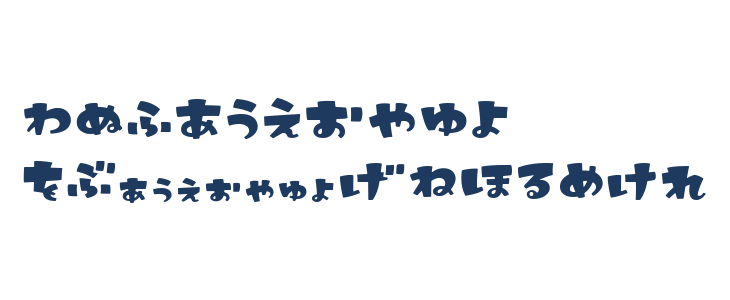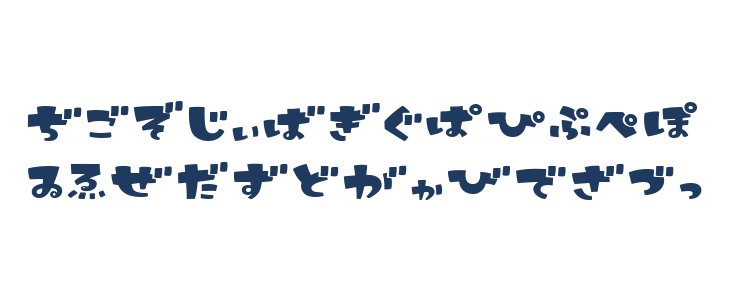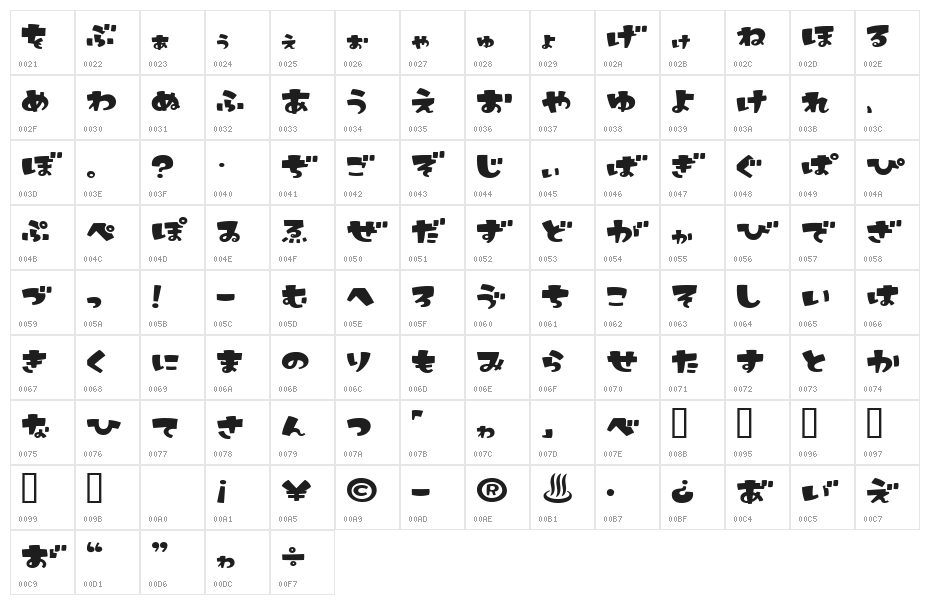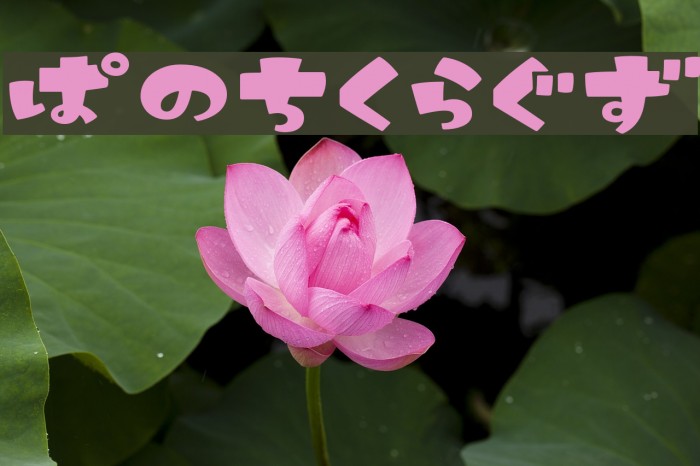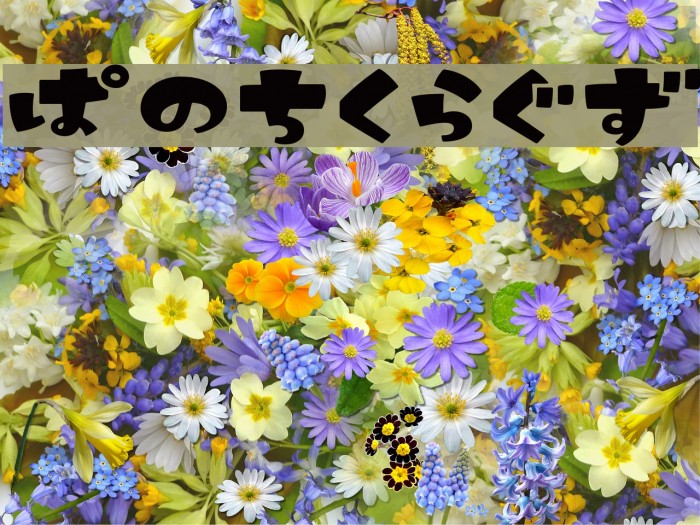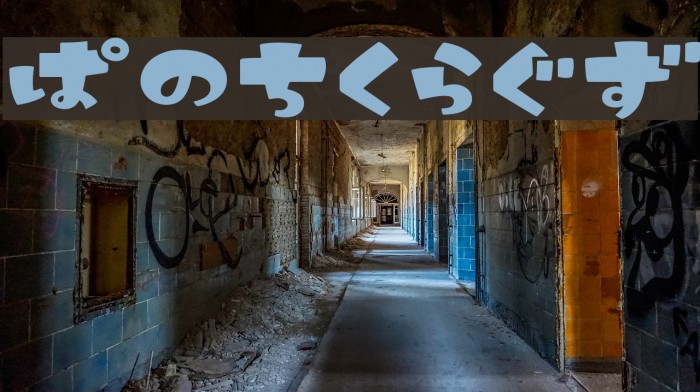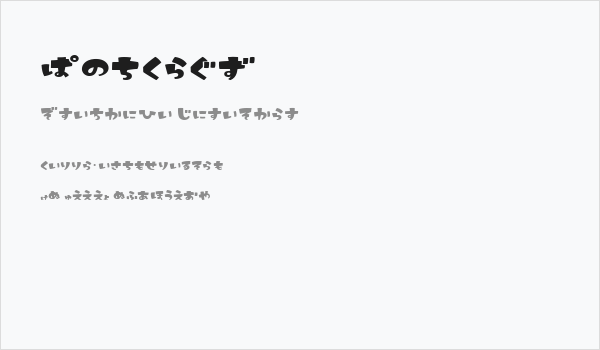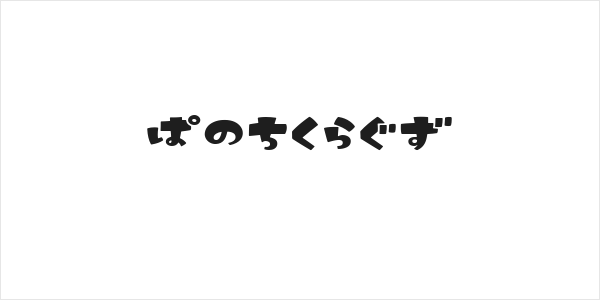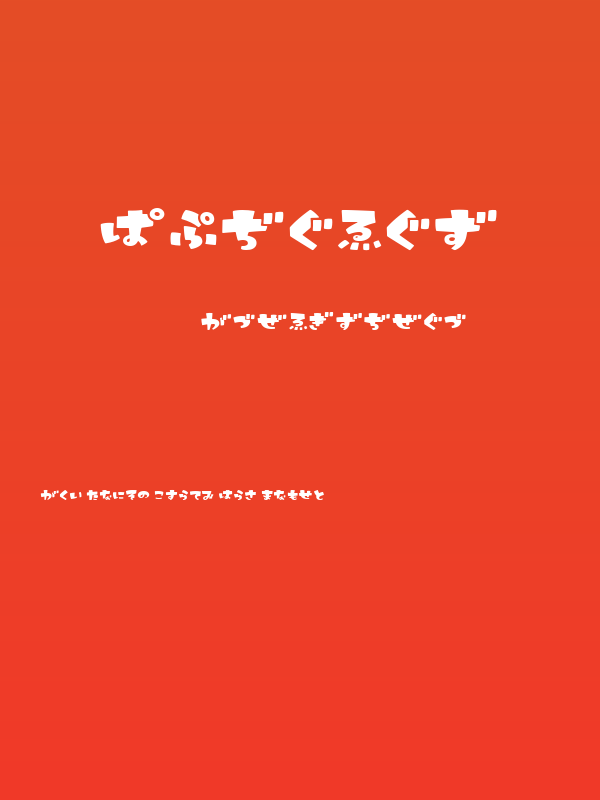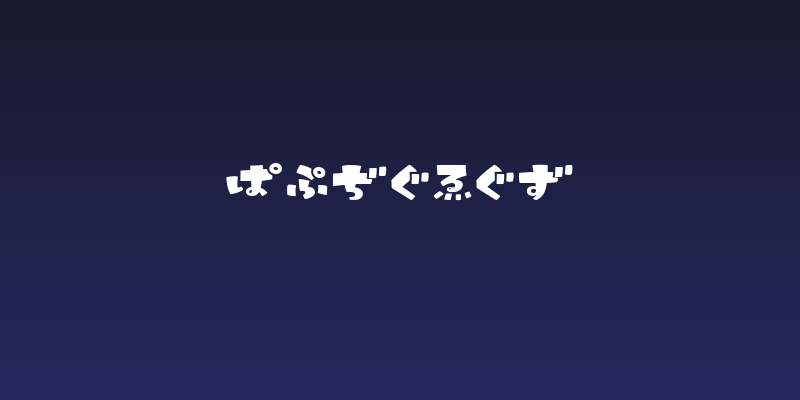
IkahoHR Font
IkahoHR Description
This font features a bold and playful style, characterized by its thick, rounded strokes and a slightly irregular baseline that adds a whimsical touch. The characters are well-defined with a strong presence, making it suitable for attention-grabbing designs. The font's playful nature is emphasized by its exaggerated curves and varying stroke widths, which contribute to its dynamic appearance. It maintains a consistent weight throughout, ensuring readability while still offering a unique visual appeal. The font's overall style is modern and decorative, making it ideal for projects that require a fun and engaging typeface.
| Proposed Projects | Ideal for children's books, playful branding, posters, and creative advertising. |